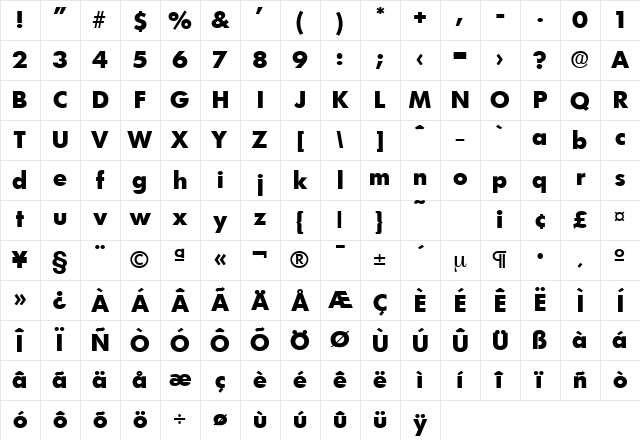
Design Context for Limerick-Serial-ExtraBold
Limerick-Serial-ExtraBold is a composed and adaptable typeface that performs quietly and consistently across a wide range of design contexts. Its bold stroke weight gives it real presence on the page.